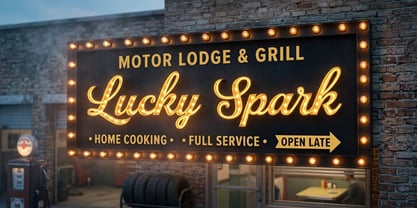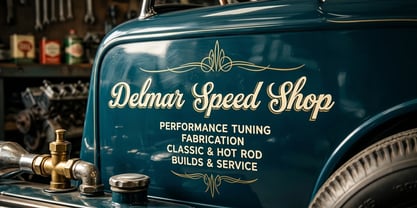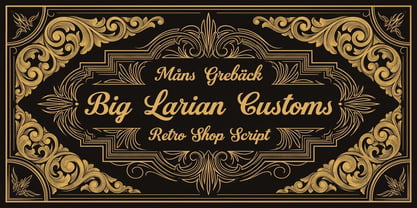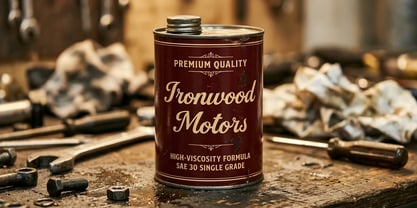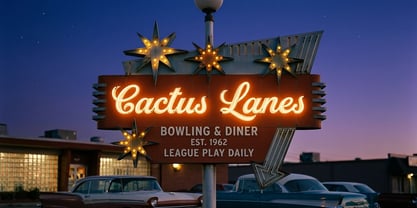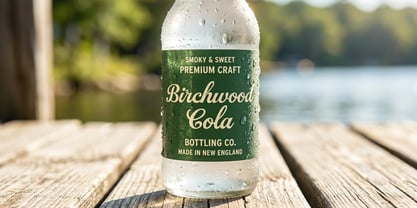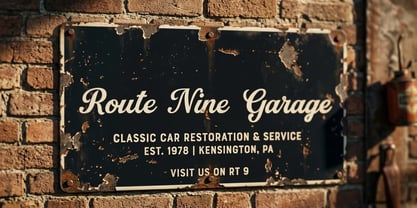
Big Larian Customs
Big Larian Customs is a bold, retro brush script with the confident swing of a hand-painted shop sign. Thick connected strokes and a lively forward lean give it a vintage Americana energy — equally at home on a hot-rod fuel tank, a diner window, or a craft-soda label.
The font is built with advanced functionality and guaranteed top-notch quality, containing stylistic and contextual alternates, ligatures and more automatic and manual features; all to give you full control and customizability.
It has extensive lingual support, covering all Latin-based languages, from North Europa to South Africa, from America to South-East Asia. It contains all characters and symbols you'll ever need, including all punctuation and numbers.